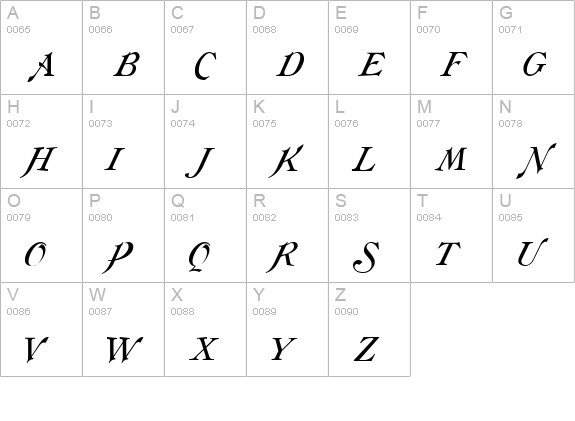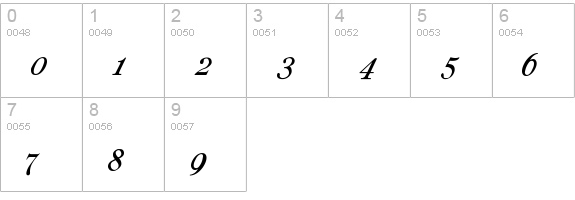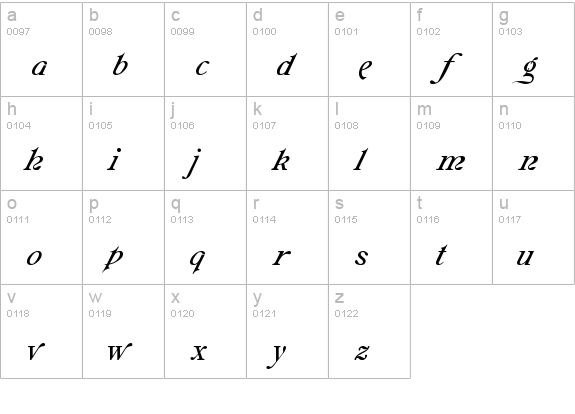
Galathea Font Details
Introducing Galathea, a stunningly beautiful font that effortlessly blends elegance and modernity. With its delicate curves and refined details, Galathea adds a touch of sophistication to any design project. Whether you're creating a logo, a wedding invitation, or a website, this font is sure to captivate and leave a lasting impression. Galathea's versatility knows no bounds - it can be used for both headings and body text, making it perfect for all your typographic needs. Its clean and legible letterforms ensure readability across various mediums and sizes. From large-scale prints to digital displays, Galathea adapts seamlessly to any platform. One of the most remarkable features of Galathea is that it is free. Yes, you read that right - this exquisite font is freely available to download at FontsMarket.com. Now, you can elevate your designs without breaking the bank. With Galathea, you have the opportunity to access high-quality typography without any cost. Whether you're a professional graphic designer or a hobbyist, Galathea empowers you to bring your creative visions to life. Its elegant yet contemporary aesthetic sets it apart from other fonts, making it a standout choice for designers seeking a touch of sophistication. Don't miss out on the opportunity to enhance your design projects with Galathea. Download this exquisite font for free at FontsMarket.com and unlock a world of possibilities. Elevate your typography game and make a lasting impression with Galathea.